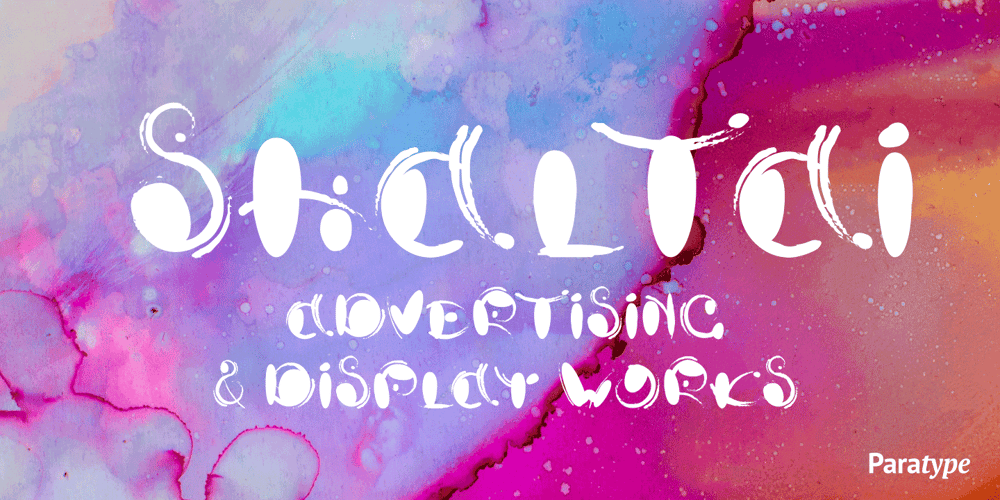
Shaltai
Shaltai font
Shaltai Font Family was designed by Ekatherina Galuyan and published by ParaType. Shaltai contains 1 styles and family package options. Decorative font Shaltai was developed by young Russian designer Katya Galuyan. The letters slightly resemble rolling, falling and broken eggs. Egg-shaped appearance of the characters determines the name of the font. Shaltai Boltai is a Russian cousin of English Humpty Dumpty, French Boule Boule and Swedish-Norwegian Lille Trille. The font can be used for advertising and display works, children books and so on. Released by ParaType in 2008.